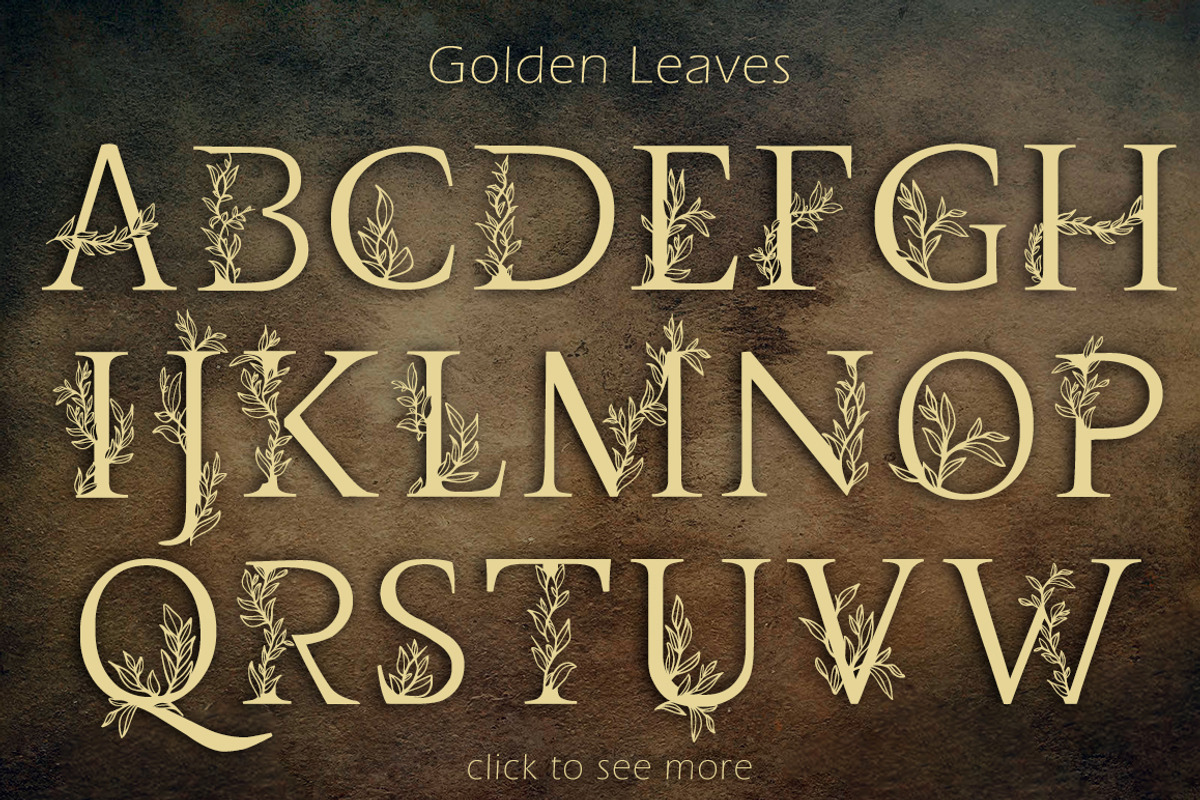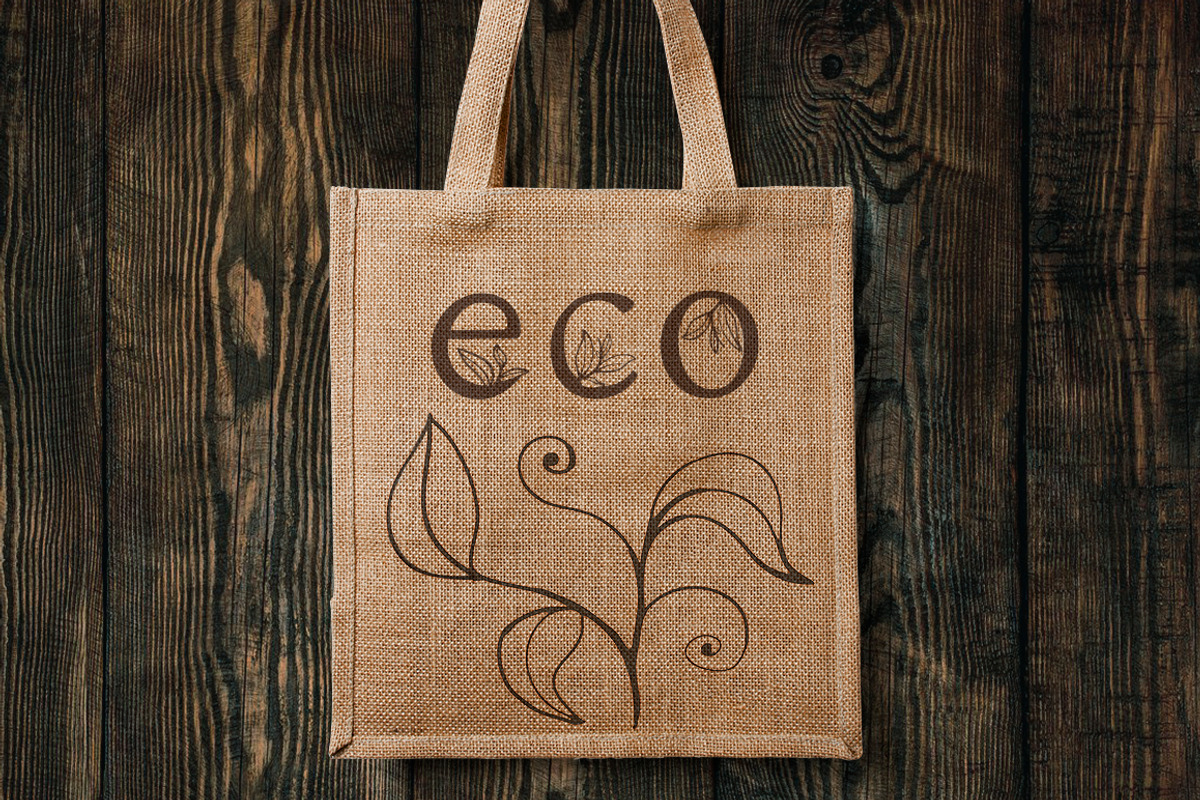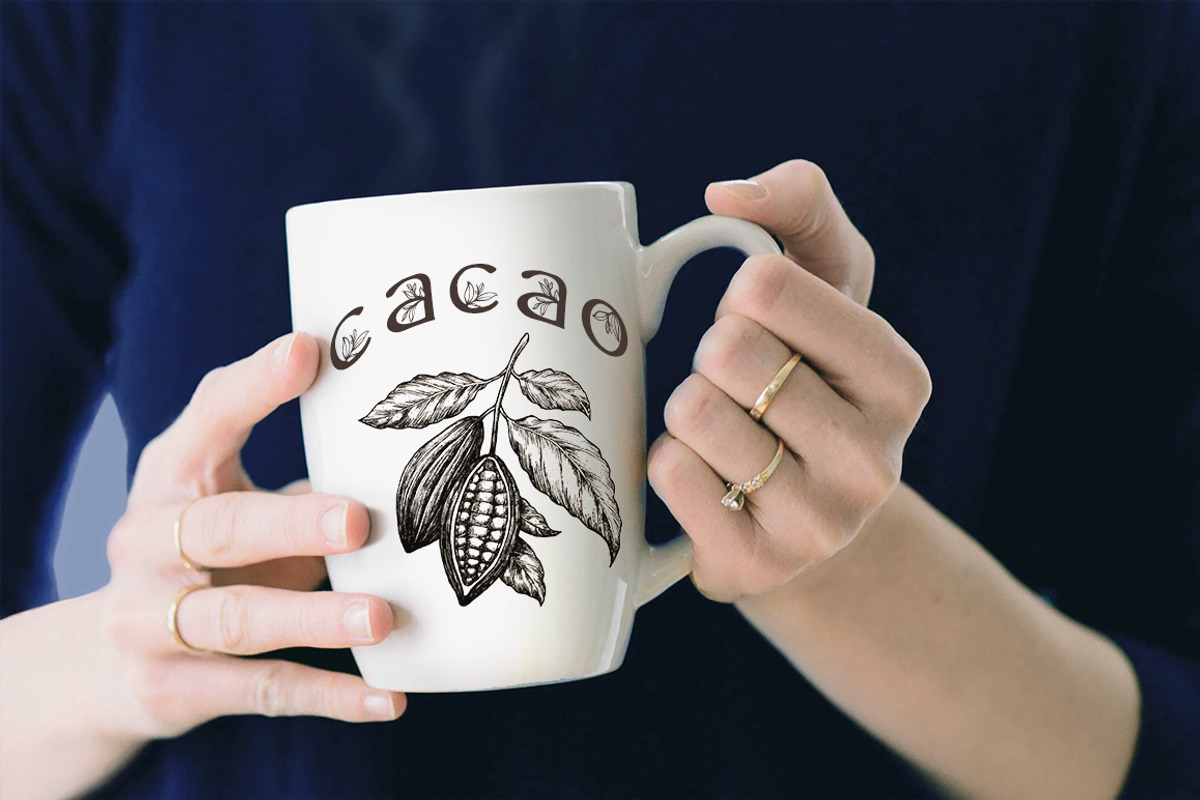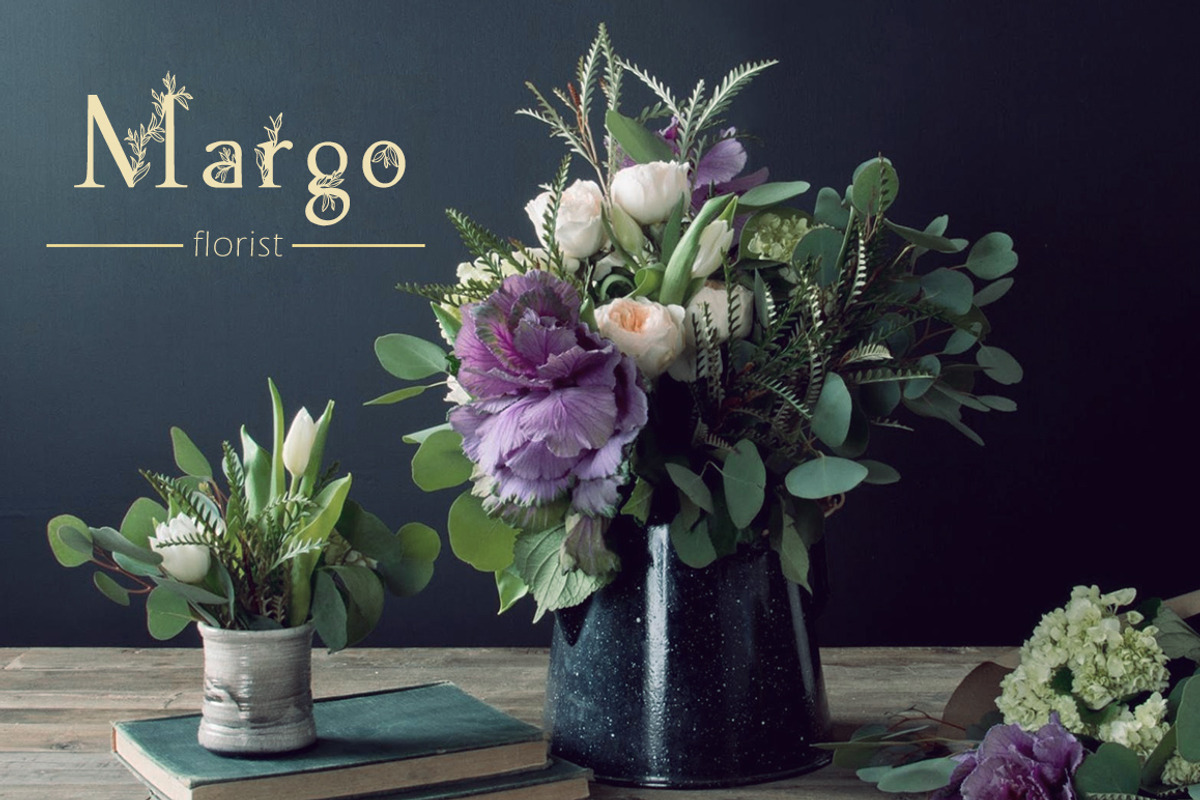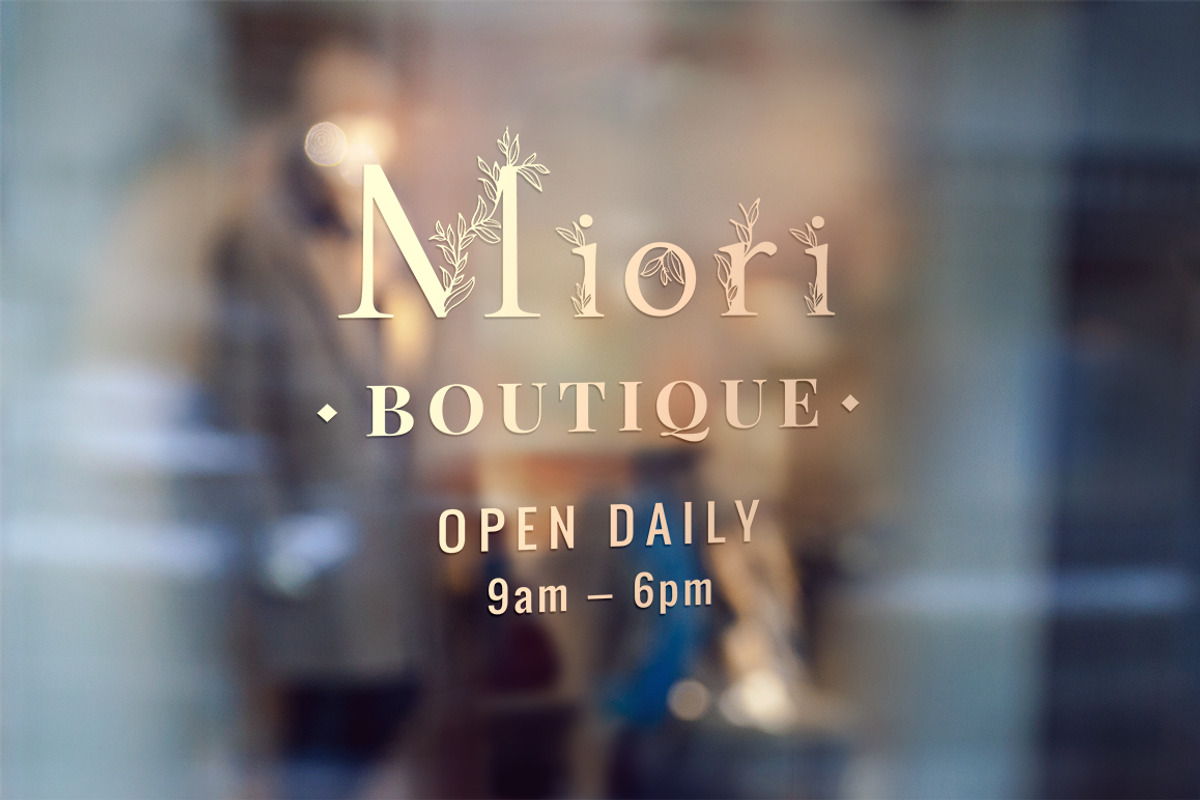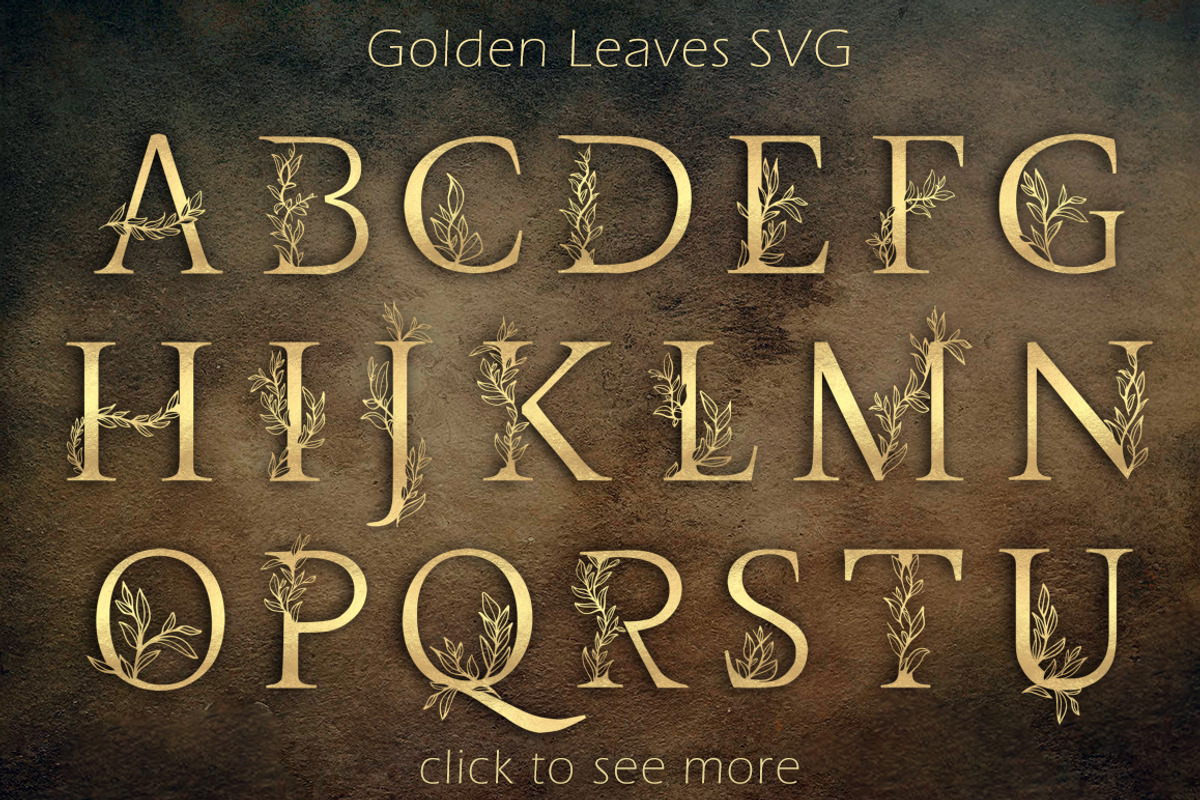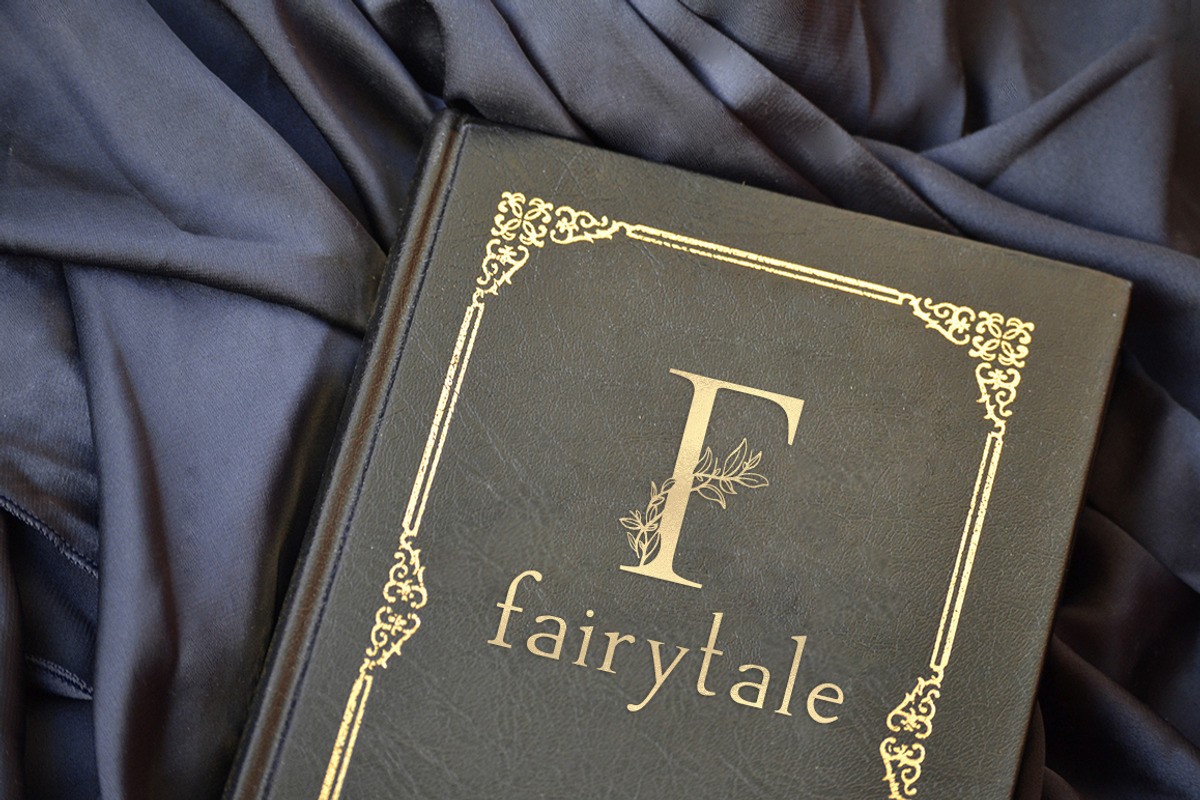
Golden Leaves - floral font
I am pleased to present "The Golden Leaves" - a stylish floral font inspired by nature and last autumn. It is perfect for business and wedding cards, logos, branding and much more, and well to emphasize your unique style. It is especially good to put emphasis in the text..
"Golden leaves (SVG)" -colored font with the texture of golden foil